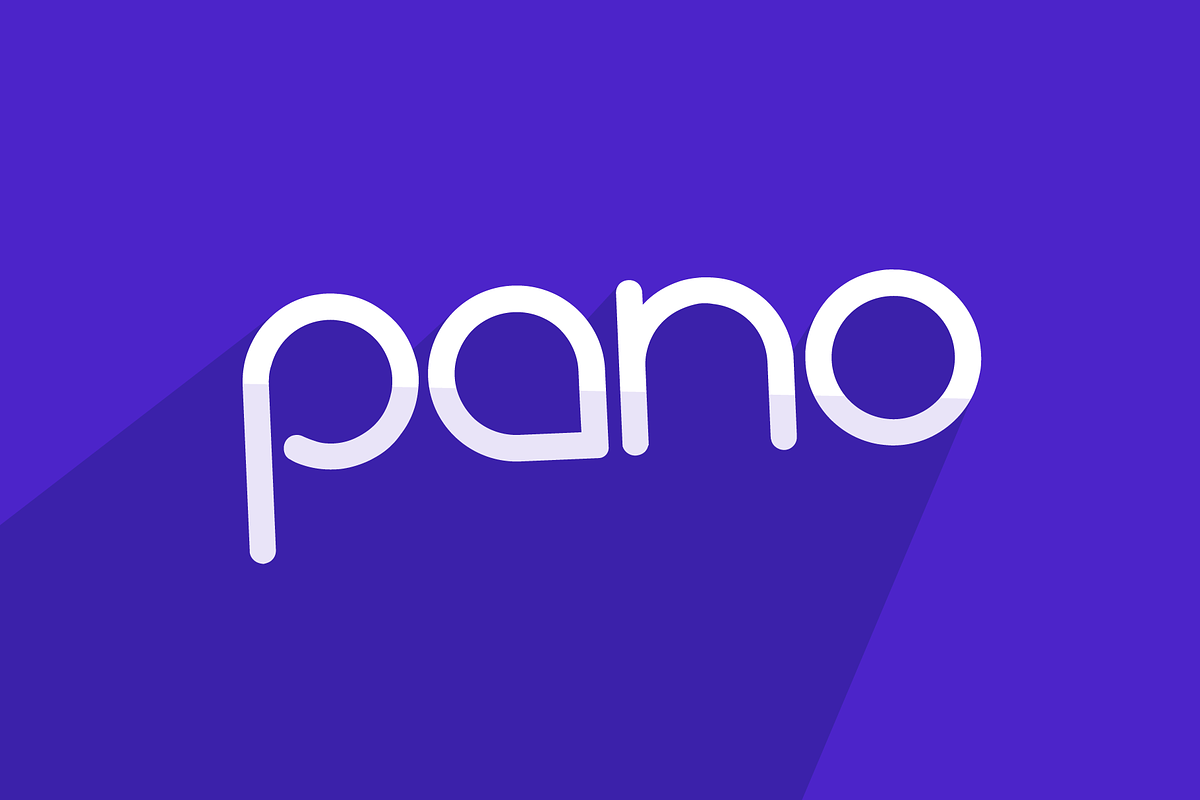
Pano – Rounded Display Font Free Download
The Pano – Rounded Display Font Free Download is a clean and modern typeface with rounded edges that provide a soft, approachable look. Perfect for creating bold headlines, logos, posters, and branding materials, this font brings a contemporary and friendly vibe to your designs. Please note, for commercial use, a license must be purchased. You can download it for free for testing purposes.
With its smooth curves and stylish design, the Pano – Rounded Display Font Free Download is ideal for projects that need a modern yet playful feel. Whether you’re working on branding, marketing materials, or social media content, this font will help your work stand out with its unique and professional appearance.